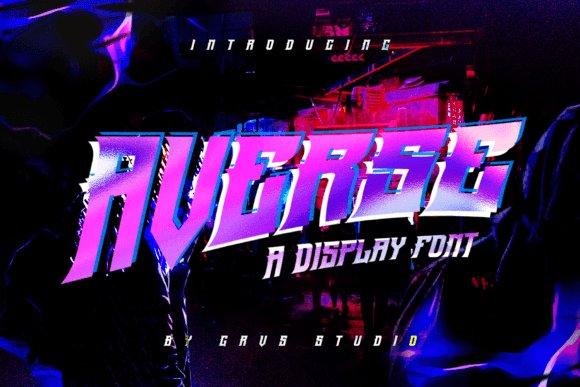
Averse Display Font for Handmade Labels & Printables
As a maker who designs printable invitations, sticker sheets, and boutique product labels, I’ve learned that the right display font doesn’t just look good—it builds trust, conveys quality, and quietly tells your customer *exactly* what kind of brand they’re supporting. That’s why Averse has become one of my go-to fonts for physical and digital craft projects. It’s not flashy or overly ornate—but it carries undeniable presence. Clean lines, confident spacing, and subtle structural nuance give Averse a strong personality without sacrificing readability. It’s the kind of typeface that looks equally at home on a hand-stamped tea towel tag or a crisp wedding welcome board.
I use Averse most often where impact matters more than length: short phrases, names, titles, and decorative headings. Think “Small Batch,” “Hand-Poured,” “Est. 2022,” or “You’re Invited.” Its design is built for display—not extended body text—so it shines brightest when sized up and given room to breathe. On candle jars, soap labels, or candy packaging, Averse adds polish without feeling corporate. It reads clearly even at 14–16pt on a 2” x 3” kraft paper tag, and cuts cleanly in Cricut Design Space and Silhouette Studio when converted to outlines (a must for consistent SVG-style designs).
For printable creators, Averse works beautifully in layered templates—especially those meant for physical printing. I’ve used it in planner cover designs where the bold weight anchors the layout, and in greeting card bundles where its confident stance makes “Happy Birthday” or “Thank You” feel personal but intentional. It also scales well for wall art prints: a single word like “Bloom” or “Gather” in Averse, printed large on matte cardstock, becomes an instant focal point in a nursery or farmhouse kitchen. Because it’s designed with balanced letterforms and generous x-height, it holds up even when printed on textured paper or transferred onto wood signs.
Seasonal craft sellers will appreciate how Averse adapts across themes. For holiday packaging, it gives “Peppermint Cocoa” or “Handmade with Love” a warm, grounded tone—neither too playful nor too formal. In spring collections, pairing Averse with a light botanical illustration keeps things fresh and cohesive. And for wedding stationery? It’s a standout choice for welcome signage, menu boards, or foil-stamped escort cards—especially when paired with a delicate script for names or a soft serif for body copy. The contrast feels intentional, not accidental.
When pairing Averse, I lean into balance. Its strong display character pairs naturally with quieter companions: a clean sans serif like Montserrat or Lato for supporting text, or a gentle handwritten font for accents and signatures. Avoid stacking two high-contrast display fonts—Averse doesn’t need competition. It thrives alongside simplicity. If your project includes multilingual elements (like bilingual wedding tags or international product labels), check whether Averse includes extended Latin support—many modern display fonts do, but it’s always worth verifying before finalizing a template bundle.
What really sets Averse apart for makers isn’t just how it looks—but how it behaves across real-world applications. It doesn’t demand attention; it earns it. Whether you’re labeling a jar of lavender honey, designing a printable baby shower kit, or crafting a minimalist boutique tag, Averse delivers consistency without stiffness. It supports your voice instead of overriding it. And in a marketplace where handmade shoppers scan quickly and decide based on first impressions, that quiet confidence makes all the difference.
If you’re building a recognizable brand identity—even across just a handful of product lines—Averse helps unify everything from your Instagram story highlights to your shipping label footer. It’s not a trend-chasing font. It’s a long-term design partner: reliable in production, expressive in presentation, and respectful of both your time and your customers’ eyes.